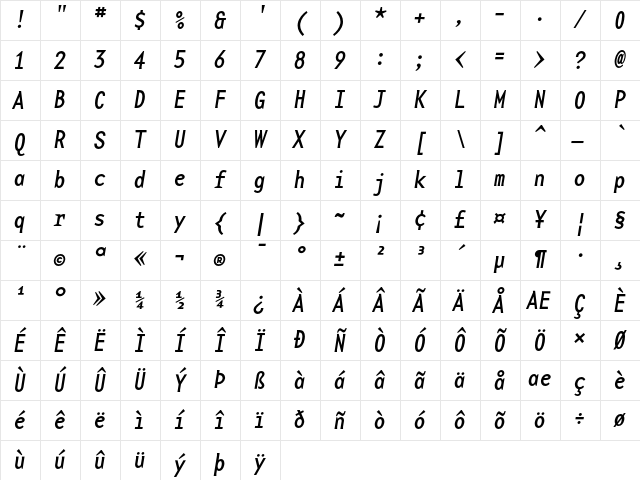
Complete BaseMonoReg-Narrow RomanItalic glyph index. Displaying only characters natively supported by BaseMonoReg-Narrow RomanItalic font.
BaseMonoReg-Narrow uses fixed-width spacing throughout, giving it the structured, systematic character associated with coding environments and technical documentation. The slanted form adds forward momentum and visual energy.
Pro Tip: Use BaseMonoReg-Narrow with slightly increased line-height for extended reading - fixed-width spacing can feel dense in longer passages without extra breathing room.